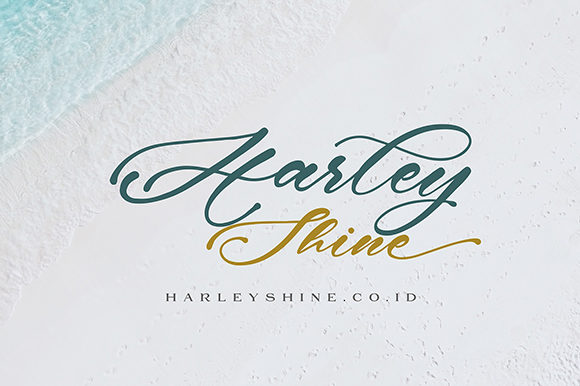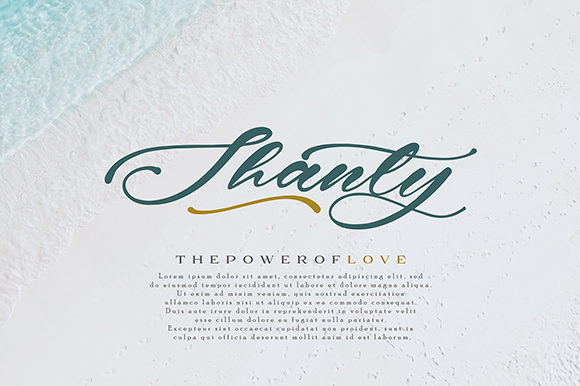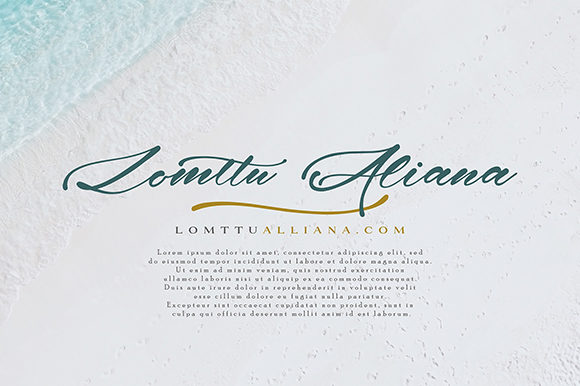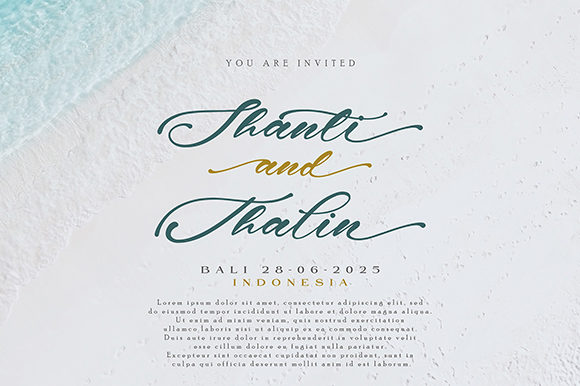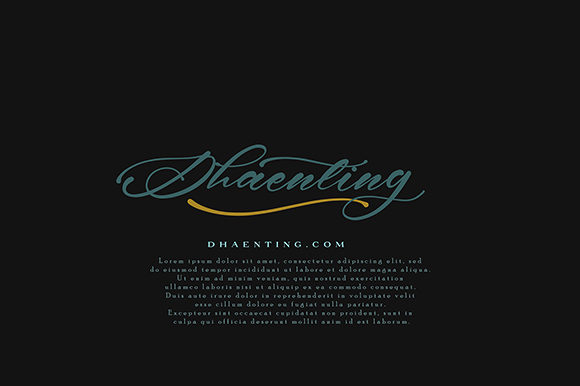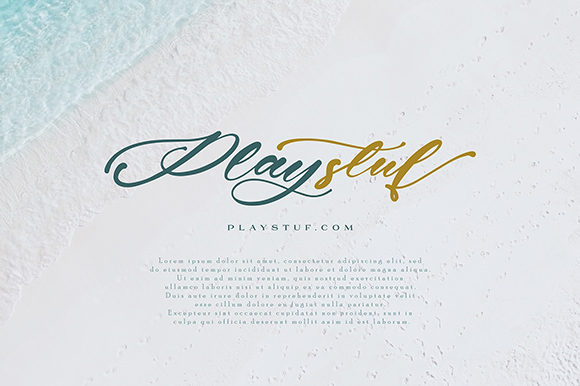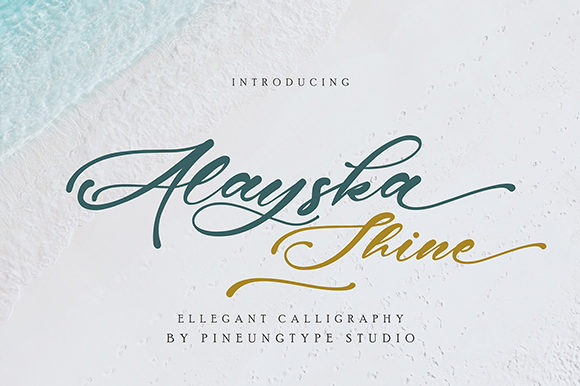
The Alayska Font: A Smooth and Charming Handwritten Script
I still remember the design project that led me to discover the Alayska font. I was working on a branding project for a boutique craft shop, and I needed a font that would capture the essence of handmade, artisanal products. I had spent hours scouring font libraries and marketplaces, but nothing seemed quite right. That was when I stumbled upon Alayska – a smooth and thin handwritten script that instantly resonated with me. Its unique charm and authenticity won me over, and I knew I had found the perfect fit for my project.
An Honest Review of Alayska Font
What I Love About Alayska ✨
- 💫 Smooth and fluid strokes that give it a natural, handwritten feel
- ✅ Elegant and refined, yet still approachable and friendly
- 🎨 Highly versatile – perfect for branding, packaging, and digital design
- 🔍 OpenType features and glyphs that allow for creative experimentation
- 🤔 Limited availability of stylistic alternates, but still offers a range of options
The Designer Inspiration Behind Alayska
Alayska was designed with the intention of creating a smooth, natural script font that captures the essence of handwritten communication. The designer aimed to craft a font that would be both elegant and approachable, perfect for a range of creative projects. While the designer’s backstory may be shrouded in mystery, their passion for typography and design is evident in every detail of Alayska.
Q: What makes Alayska font unique?
A: Alayska’s unique charm lies in its smooth, fluid strokes and natural, handwritten feel. Its OpenType features and glyphs also offer a range of creative possibilities.
Q: Is Alayska suitable for body text?
A: While Alayska is a beautiful font, it’s best suited for headings, titles, and short paragraphs. Its elegant, refined feel may not be suitable for longer blocks of body text.